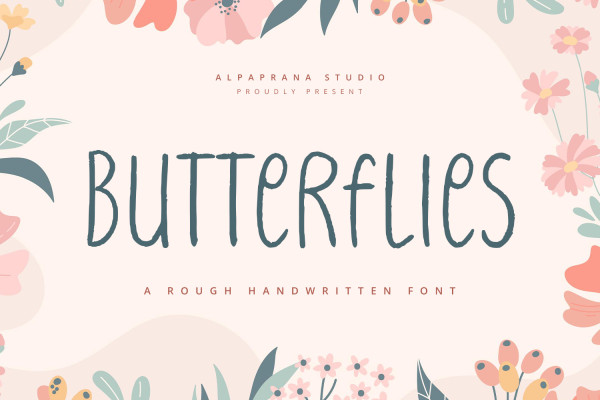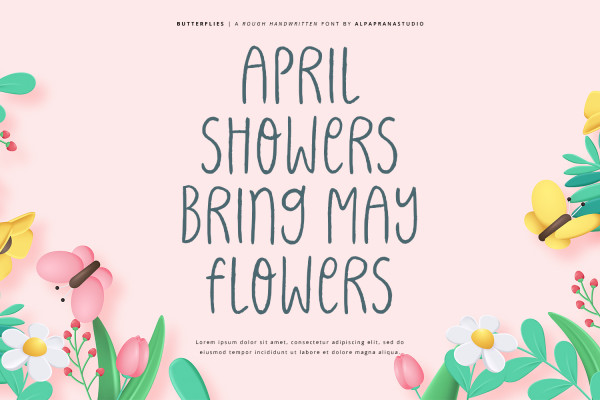
Butterflies Font
Butterflies Font is a rough handwritten font with cute and modern feels. It will be perfectly used for Branding, Logo Design, Lettering, Logotype, Clothing, Poster, magazine, packaging, posters, shopping bags, t-shirts, book covers, photography, special events and other design project.